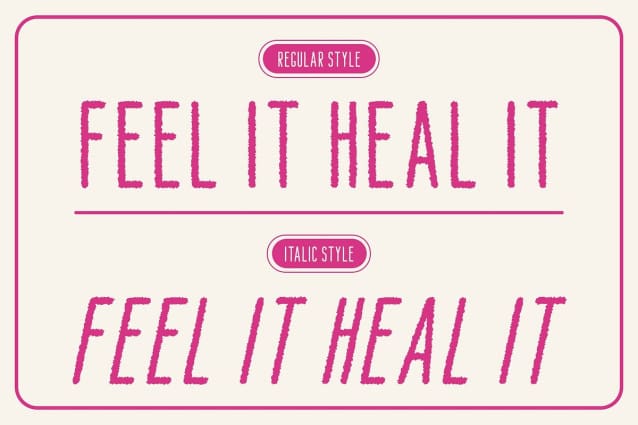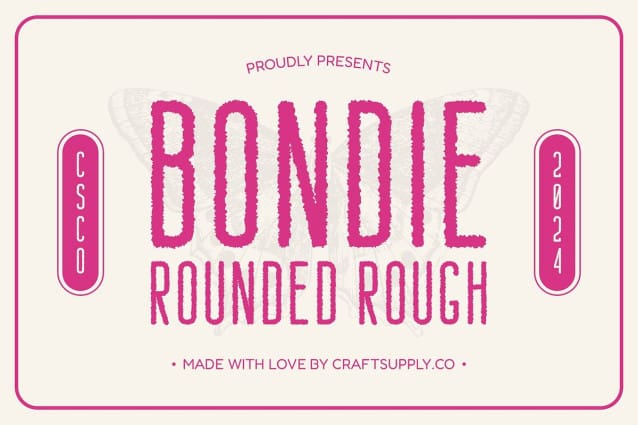
Bondie Rounded Rough Font
Bondie Rounded Rough Font: A Friendly Modern Sans Serif. Inviting Design with Condensed Rounded Shapes This modern sans serif font captivates with its condensed and rounded shapes, effortlessly conveying a clean and approachable impression. The soft, rounded forms imbue the typeface with a friendly and inviting quality, making it an excellent choice for projects that seek to establish warmth and connection with their audience.
Textured Character with a Unique Rough Effect What sets this font apart is its distinctive rough effect, which adds character and texture to each letter. This rugged touch introduces a sense of authenticity and creativity to your designs, ensuring they stand out in a visually crowded landscape. The playful combination of smooth rounded edges and textured surfaces offers a charming balance that enhances the overall aesthetic.
Versatile Applications for Modern Design Projects Ideal for branding, posters, and promotional materials, this font excels in various design contexts where readability and visual impact are paramount. The condensed proportions ensure optimal readability, allowing your message to shine clearly without compromising style. Whether you’re creating marketing materials or visual identities, this rounded rough font brings a sense of modernity and approachability to your projects.